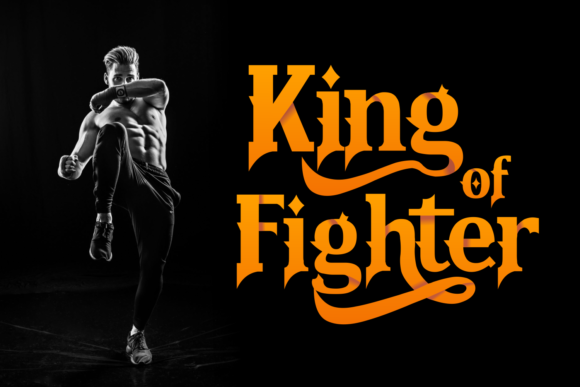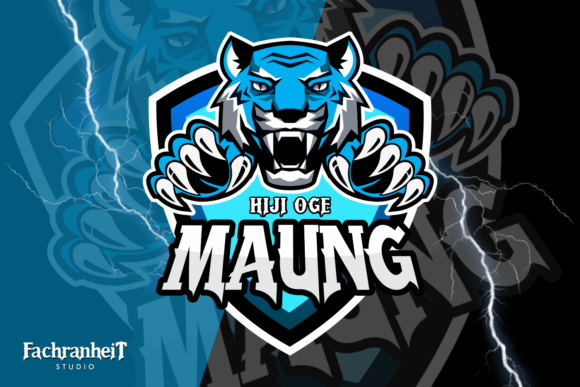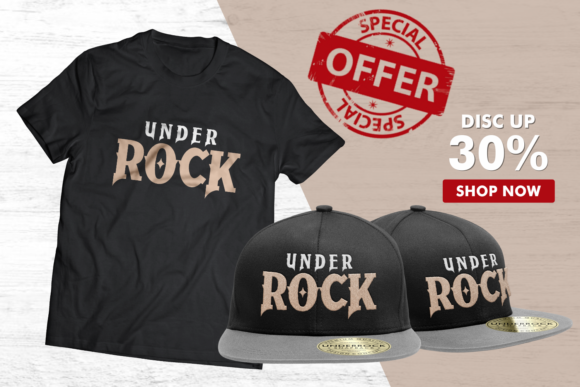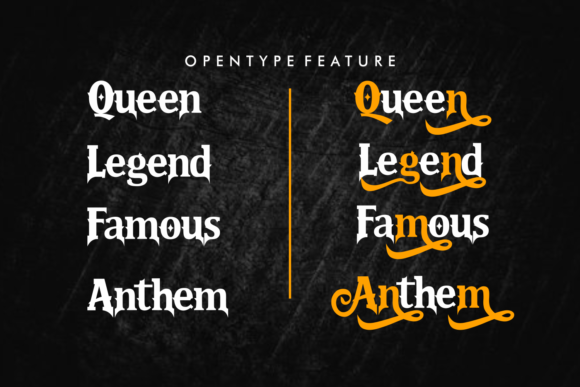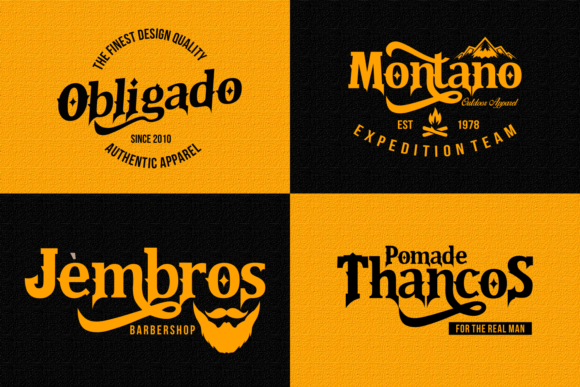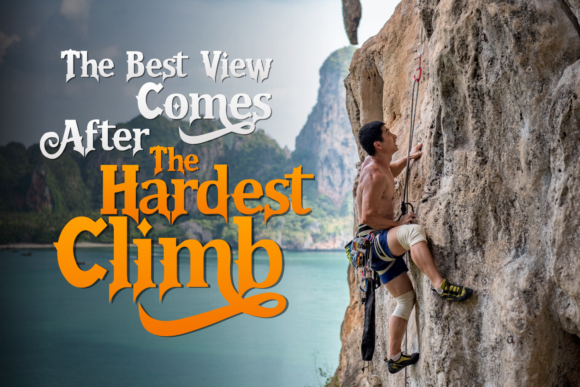
Introduction to Quinthero Font
As a designer, there’s nothing quite like that moment when a new project sparks inspiration. You’re brainstorming ideas, pouring over references, and experimenting with different styles until – voilà! – the perfect font appears. For many creatives, that magical moment often involves the Quinthero Font, a stylish blackletter font that effortlessly blends modern flair with nostalgic charm.
Whether you’re working on a high-profile branding project or a personal creative pursuit, Quinthero Font is a valuable resource that can elevate your design to the next level. Its unique aesthetic makes it an ideal choice for designers seeking to add a touch of sophistication and personality to their work.
- High-quality design resource perfect for creative projects, offering a unique and elegant touch.
- The font comes in a single weight, ideal for projects where a clean and simple design is required.
- Quinthero Font is designed to be highly legible, making it an excellent choice for body text and titles in various creative projects.
Honest Review: Quinthero Font
As a designer, I’m always on the lookout for high-quality design resources that can elevate my creative projects. Recently, I stumbled upon the Quinthero Font, and I’m excited to share my honest review with you.
- ✨ Beautifully designed letters with a modern twist, perfect for contemporary designs
- ✨ High-quality font that’s suitable for both print and digital applications
- ✨ Includes a transparent background option, making it easy to use in various design scenarios
- ⚠️ Limited character set, which may not be ideal for projects that require extensive text editing
- ⚠️ Not suitable for designs that require a more classic or traditional font style
Overall, I’m impressed with the Quinthero Font’s modern design and high-quality performance. While it may have some limitations, it’s a great addition to any designer’s toolkit, especially for creative projects that require a unique and modern touch. If you’re looking for a free download that’s perfect for digital designs, I’d definitely recommend giving it a try.
The Quinthero Font is ideal for various creative projects, including graphic design, digital art, and typography. It’s also perfect for creating social media graphics, presentations, and documents that require a high-quality, visually appealing font.